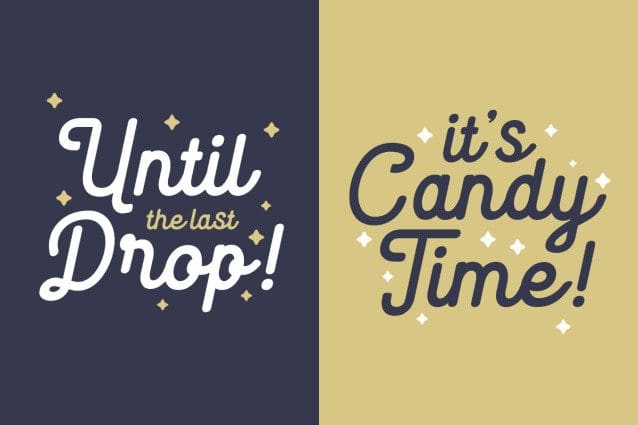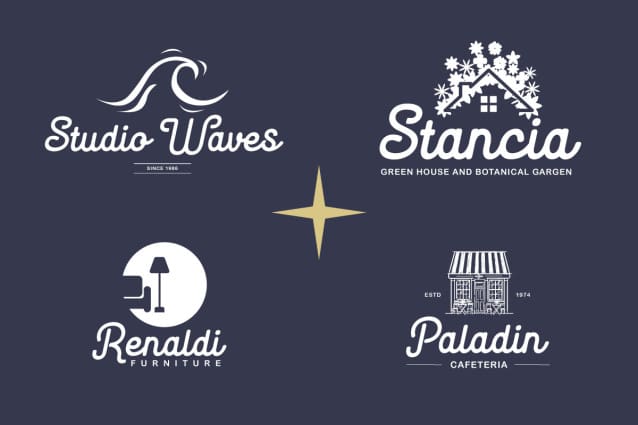
Marically Script Font
Marically Script Font, a script font that dances gracefully across the page. With each stroke, Marically captures the essence of sophistication and fluidity, lending a touch of refinement to your projects. Whether it’s invitations, branding, or editorial designs, this font adds a dash of charm and personality to every piece.